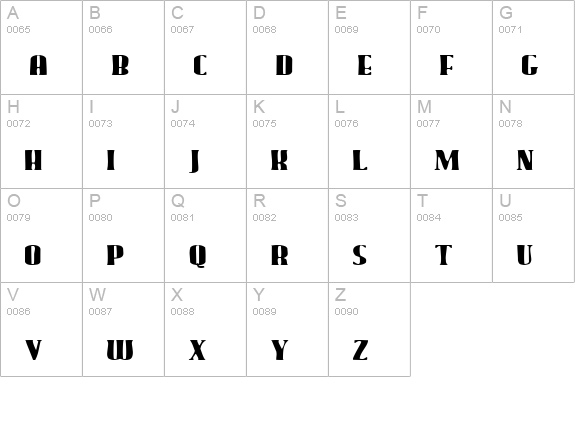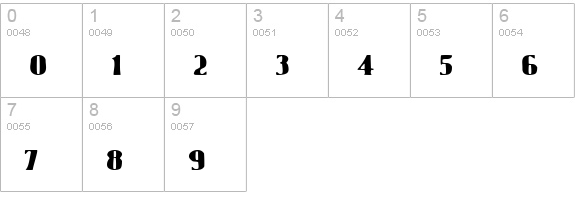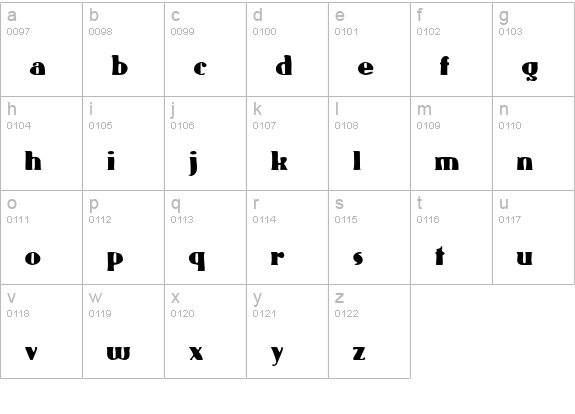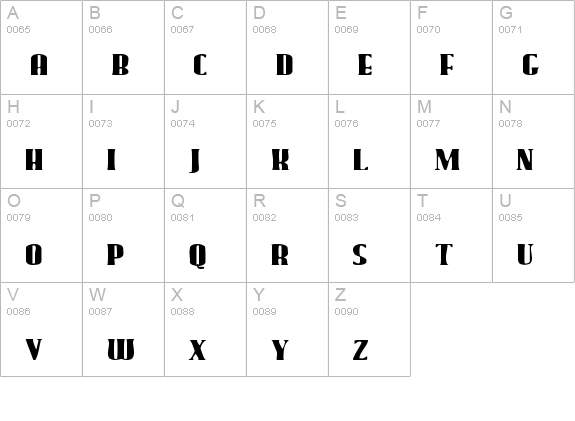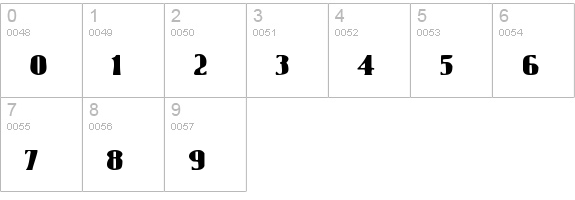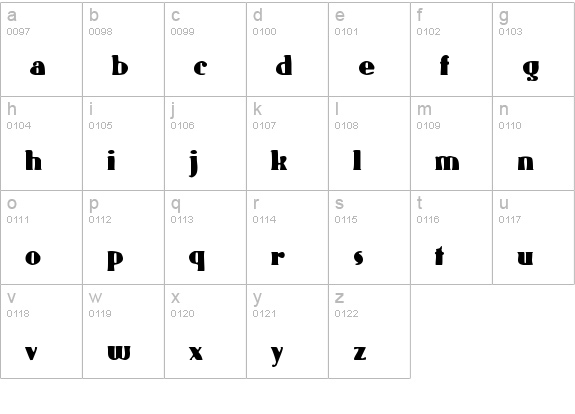
Gaggers Font Details
Gaggers font is a captivating and eye-catching typeface that is sure to leave a lasting impression. With its playful and quirky design, this font is perfect for adding a touch of fun and personality to any project. Whether you're designing a logo, creating a poster, or crafting a social media graphic, Gaggers font will surely make your text stand out. What sets Gaggers font apart is not only its unique and distinctive style, but also the fact that it is available for free. That's right, this fantastic font can be freely downloaded from FontsMarket.com, making it easily accessible to designers and creatives everywhere. With Gaggers font, you have the freedom to experiment and explore different design possibilities. Its versatility allows it to be used in a variety of contexts, from bold headlines to subtle accents. The clean lines and carefully crafted letterforms ensure legibility, while the playful details and quirky elements add a touch of whimsy. Whether you're looking to create a lighthearted and joyful design or add a touch of humor to your project, Gaggers font is the perfect choice. So why wait? Download Gaggers font for free at FontsMarket.com and let your creativity run wild.